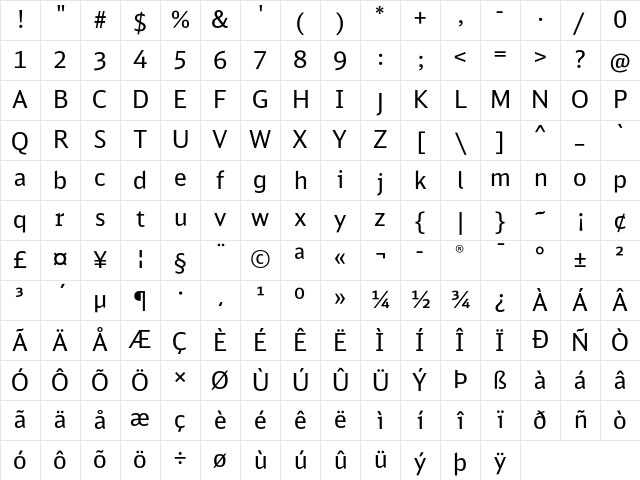
Complete DB Head Alternate Regular glyph index. Displaying only characters natively supported by DB Head Alternate Regular font.
DB Head Alternate is a composed and adaptable typeface that performs quietly and consistently across a wide range of design contexts.